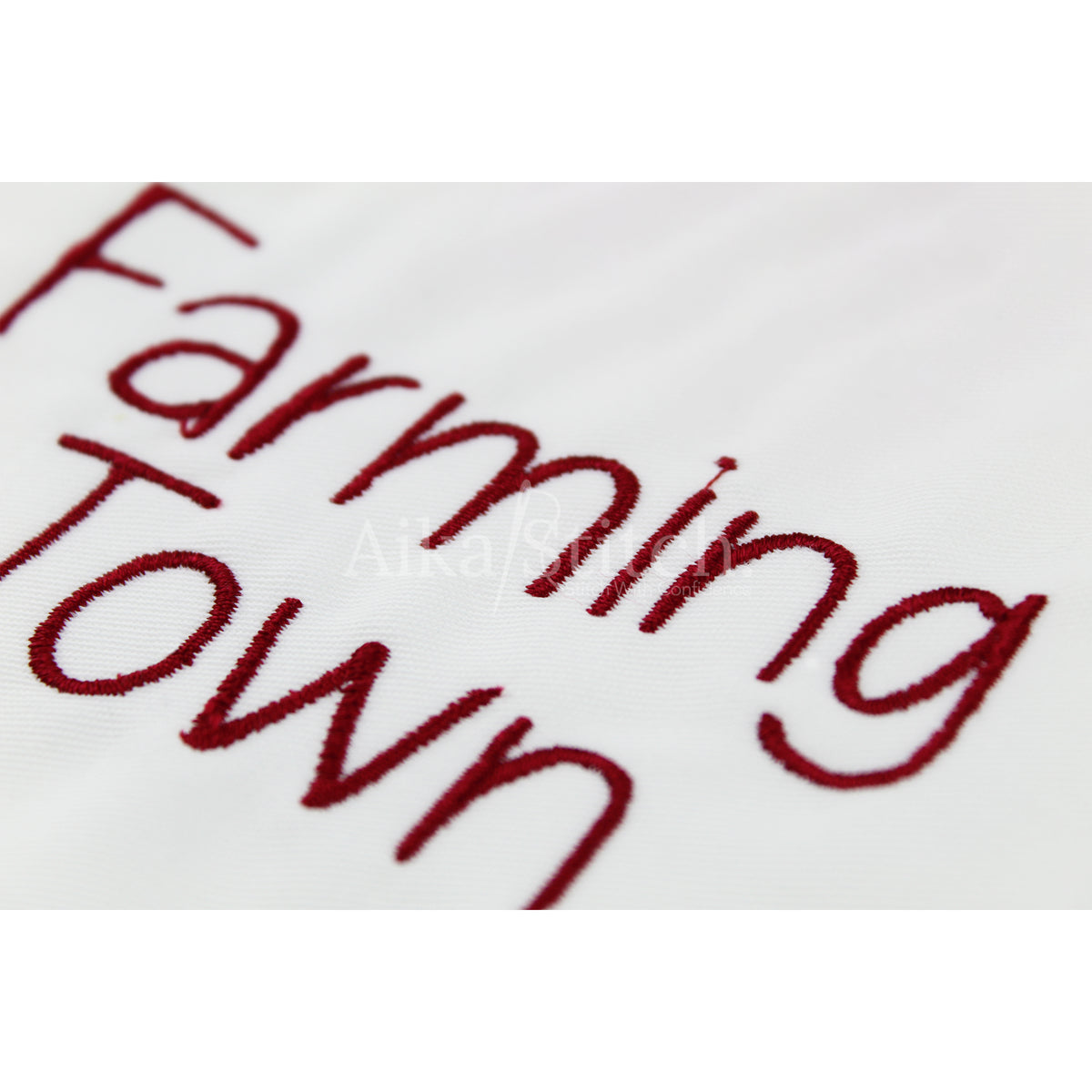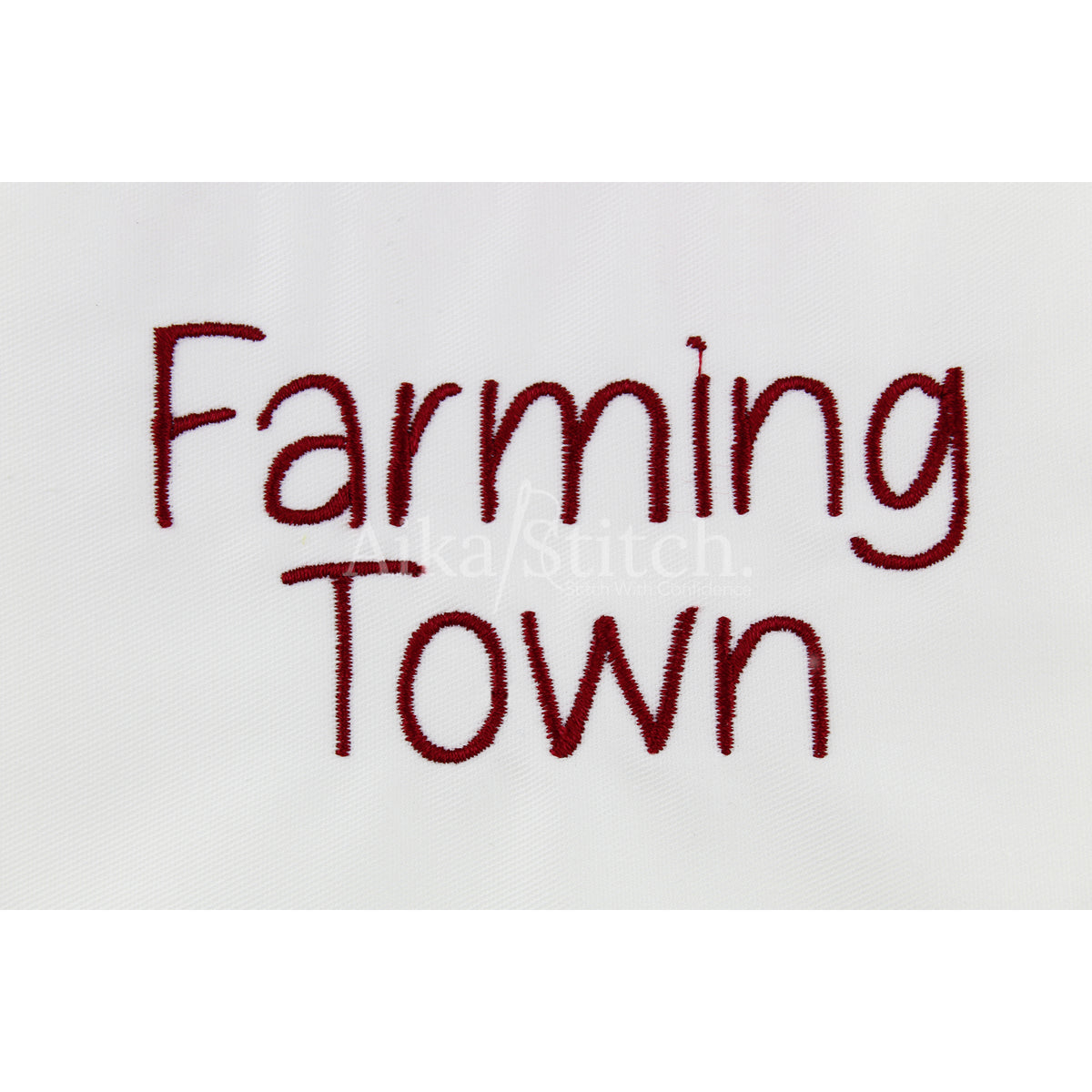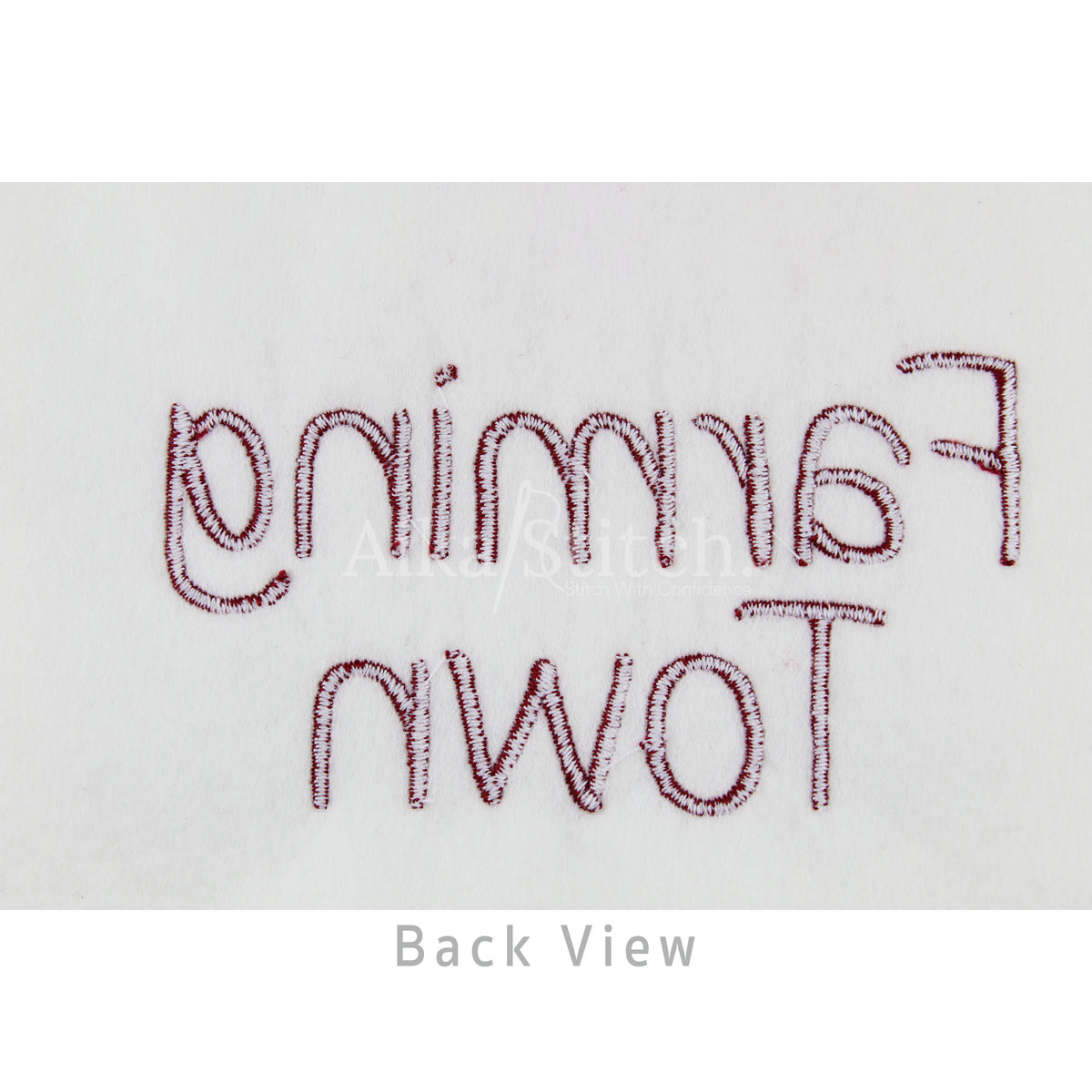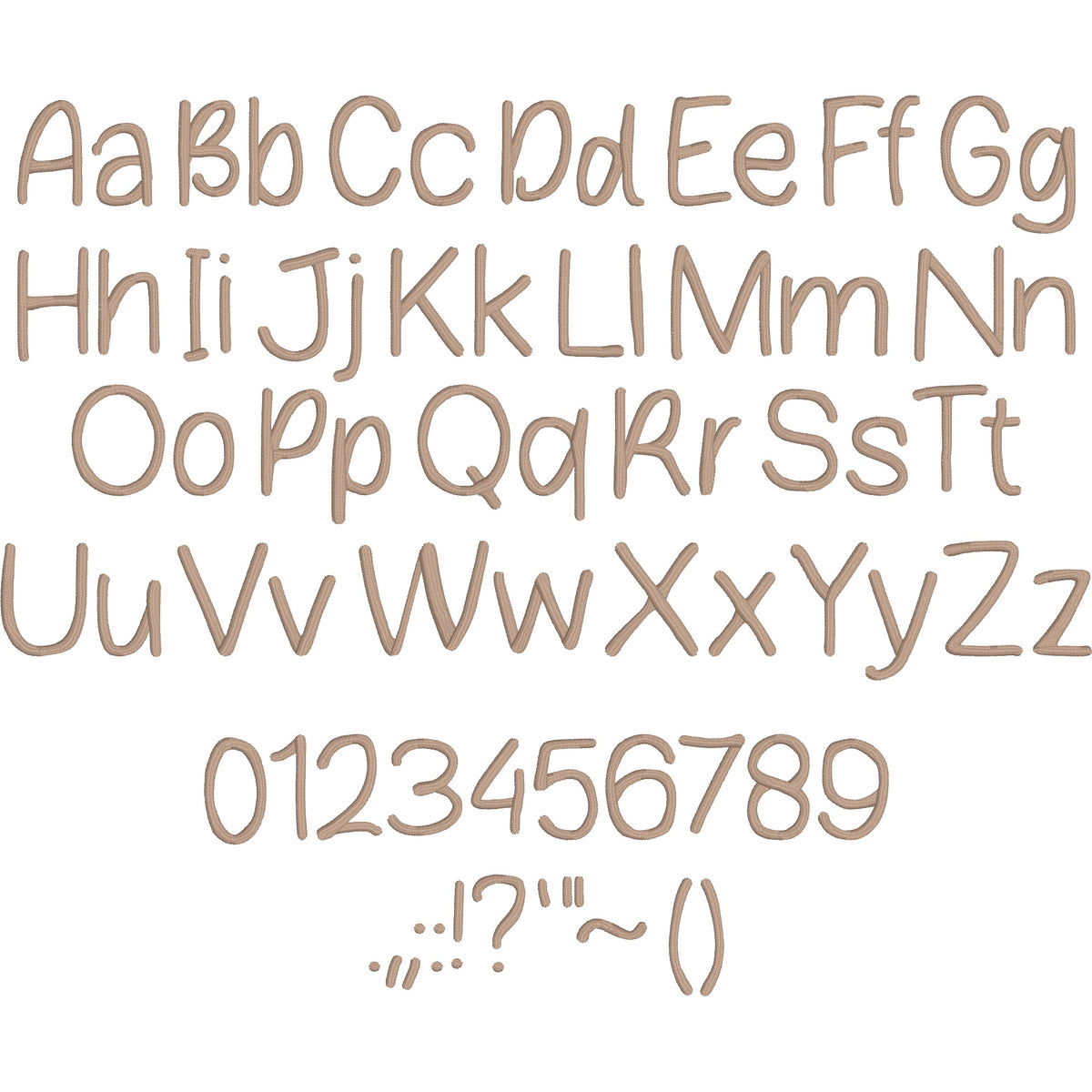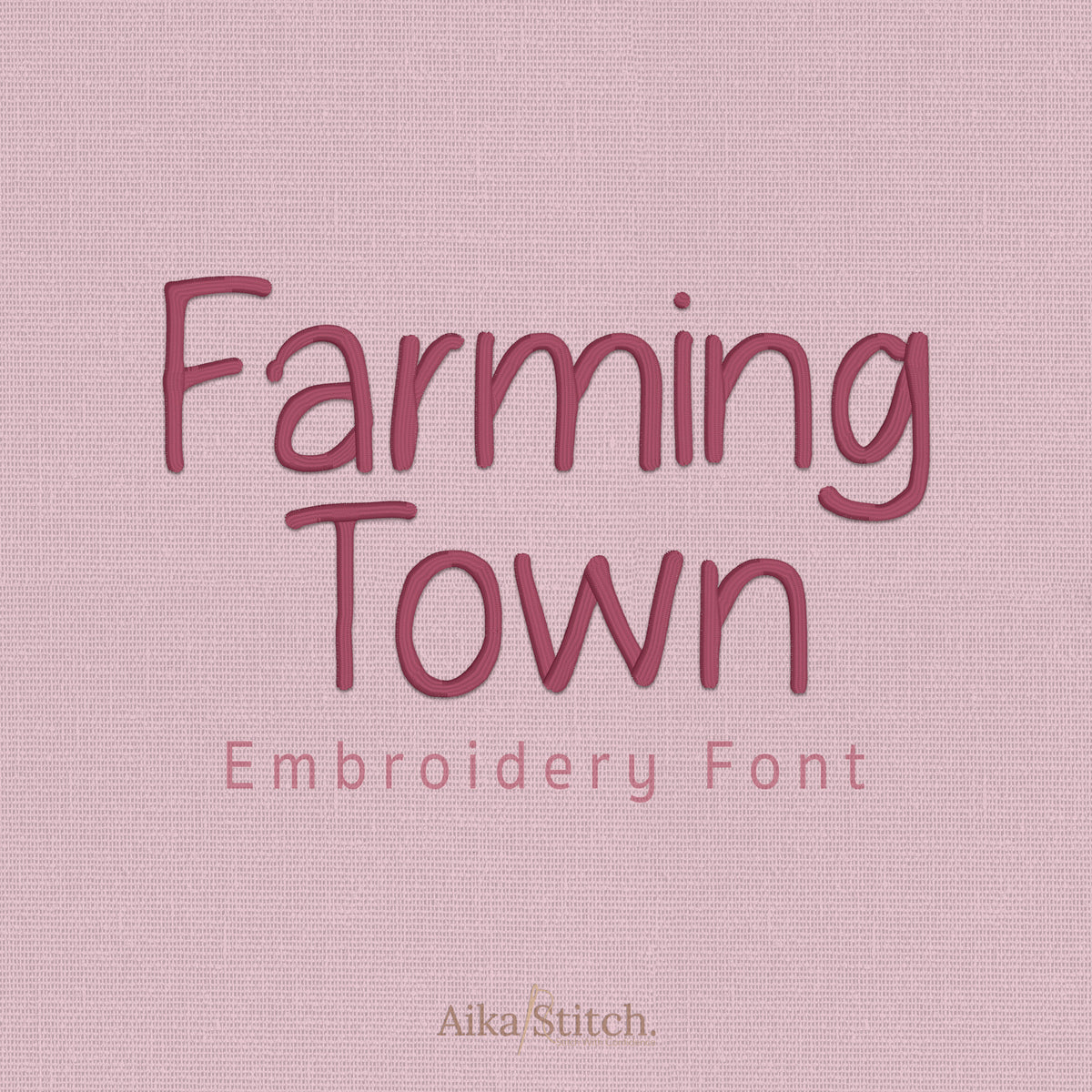
Farming Town Handwritten Calligraphy Embroidery Font
Farming Town is a Handwritten Calligraphy machine embroidery font featuring beautiful satin stitch lettering. Perfect for shirts, towels, hats, baby gifts, monograms, and small business embroidery projects.